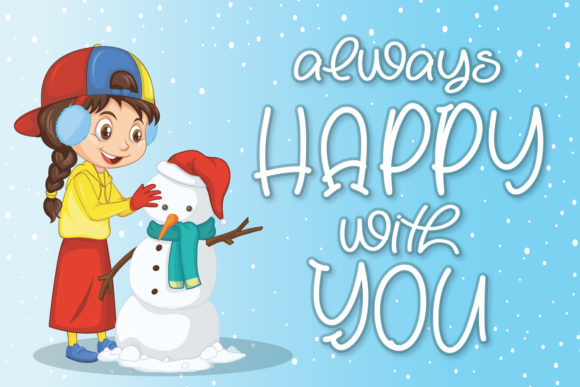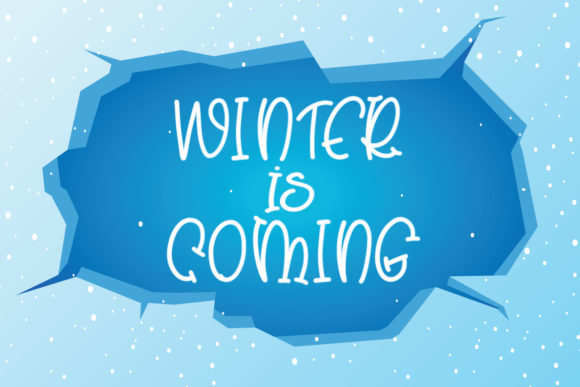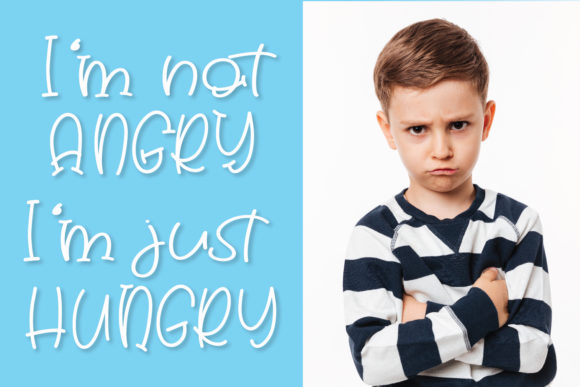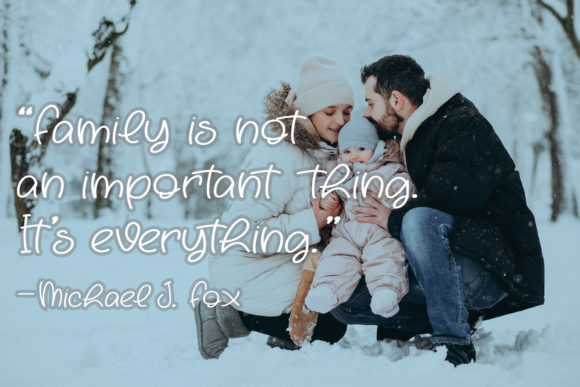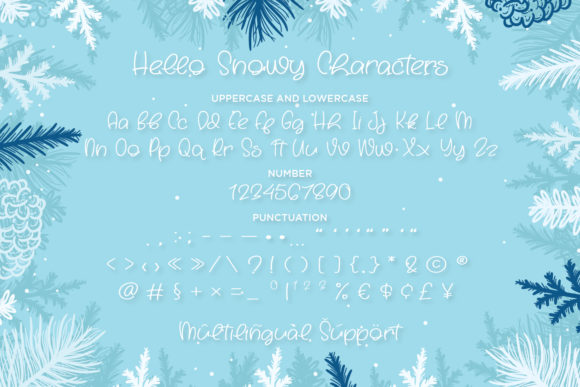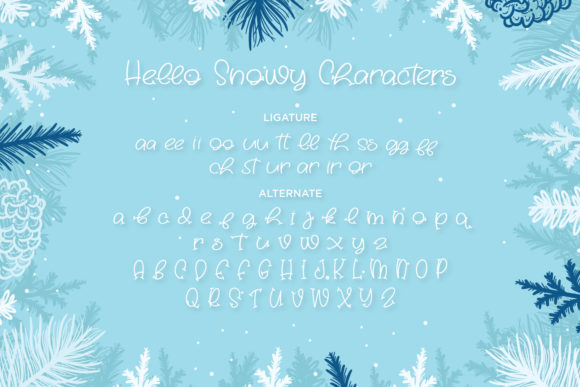
Introduction to Hello Snowy Day Font
Remember the excitement of waking up on a snowy morning as a child? The world outside is blanketed in a thick layer of white, and the air is crisp with the promise of adventure. For designers, there’s something special about capturing that magical feeling in a creative project. Whether it’s a festive holiday card or a whimsical children’s book, the right font can transport viewers to a world of wonder.
That’s where the Hello Snowy Day Font comes in – a delightful display font that embodies the joy and innocence of childhood. With its playful, hand-drawn feel and high-quality design, this font is the perfect resource for designers looking to add a touch of magic to their next project.
Key Features of Hello Snowy Day Font
- High-quality design resource with a transparent background, perfect for creative projects.
- Includes 6 unique characters, each with a distinct winter-themed design.
- Supports a wide range of languages, making it a versatile design resource.
- Can be easily scaled and resized without losing its crisp, clean design.
Honest Review: Hello Snowy Day Font
I recently stumbled upon the Hello Snowy Day Font, and I must say it’s a lovely addition to any design resource. The font features a transparent background, making it perfect for creative projects that require a bit of whimsy.
What works well: ✨ The font’s playful and elegant design makes it perfect for winter-themed projects, from invitations to social media graphics. The font is also highly customizable, allowing designers to adjust the size, color, and spacing to suit their needs.
- High-quality design: The font is well-crafted and has a professional feel to it.
- Transparent background: The font’s transparent background makes it easy to layer with other design elements.
What doesn’t work so well: ⚠️ While the font is highly customizable, it can be a bit tricky to work with for designers who are new to font manipulation. Additionally, the font may not be suitable for projects that require a more modern or edgy look.
Overall impression: The Hello Snowy Day Font is a lovely addition to any design resource. While it may have some limitations, its high-quality design and free download make it a great resource for designers who are looking for a unique and elegant font for their creative projects.
To get the most out of the Hello Snowy Day Font, use it with a transparent background to create a beautiful and elegant design. Experiment with different font sizes and styles to add depth and visual interest to your project.
The Hello Snowy Day Font is perfect for:
- Winter-themed designs
- Christmas and holiday cards
- Photography and graphic design projects